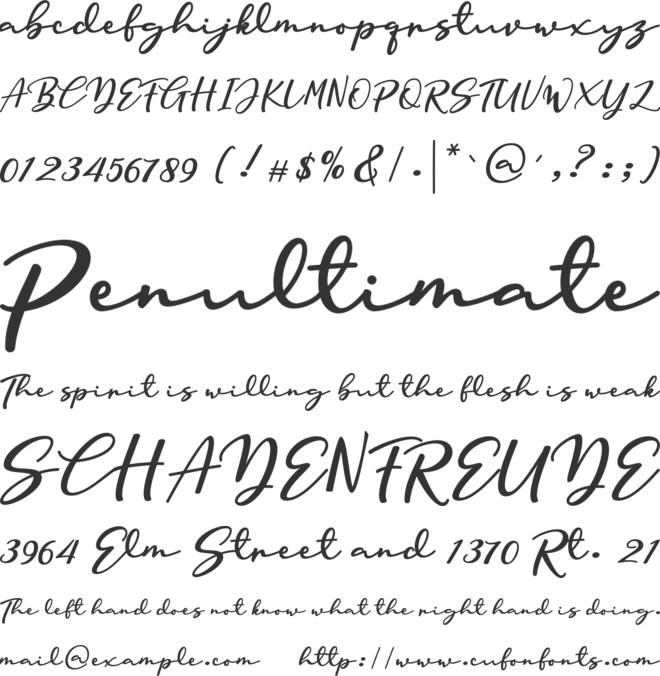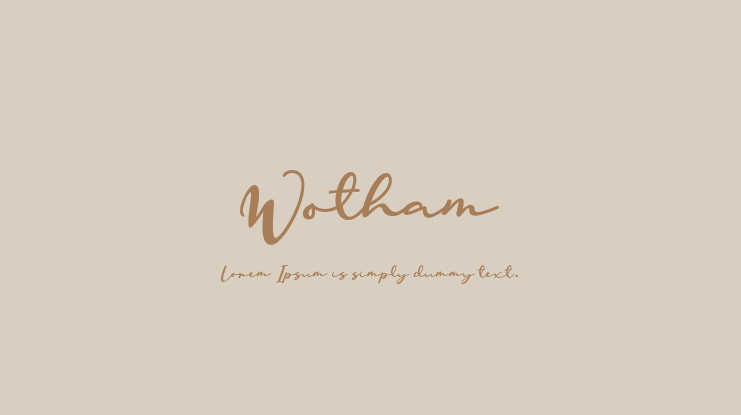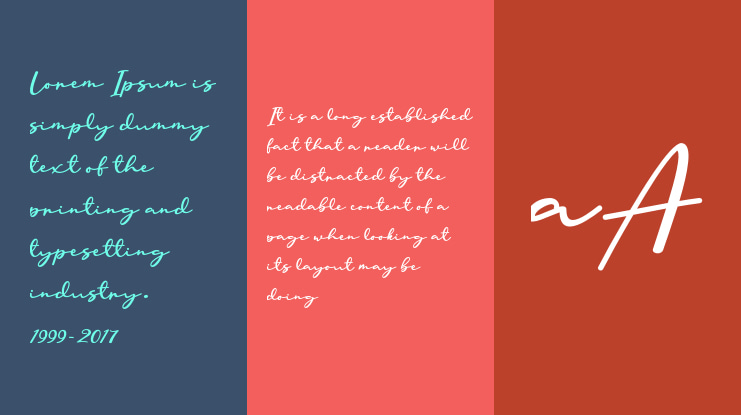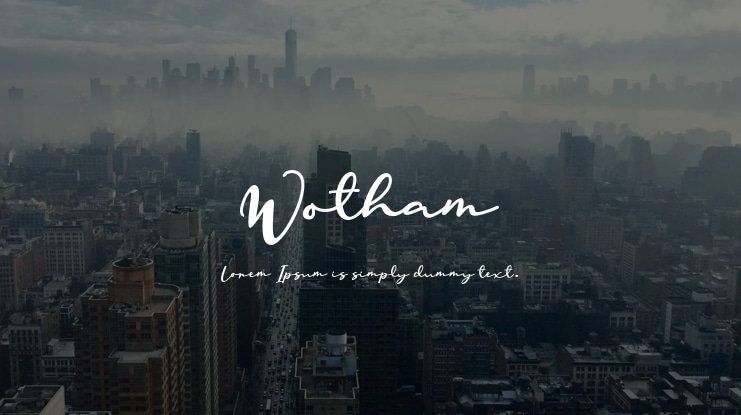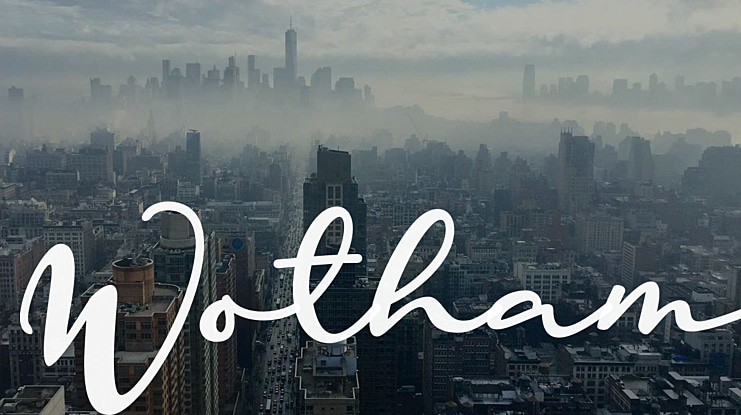
Wotham Font Family
Wotham is a beautiful signature font featuring a modern and attractive typeface created for branding any professional project. This is best applied to logos, branding, cards, packaging, book covers, wedding invitations, printed quotes, merchandise, and so on.